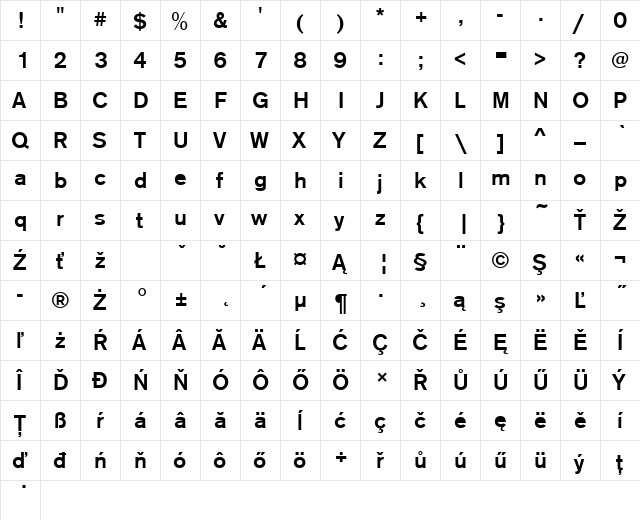
AcciusTEEMed Regular
Design Context for AcciusTEEMed Typeface
AcciusTEEMed offers clean, dependable letterforms without strong stylistic allegiance, making it a practical choice for designers who need flexibility.